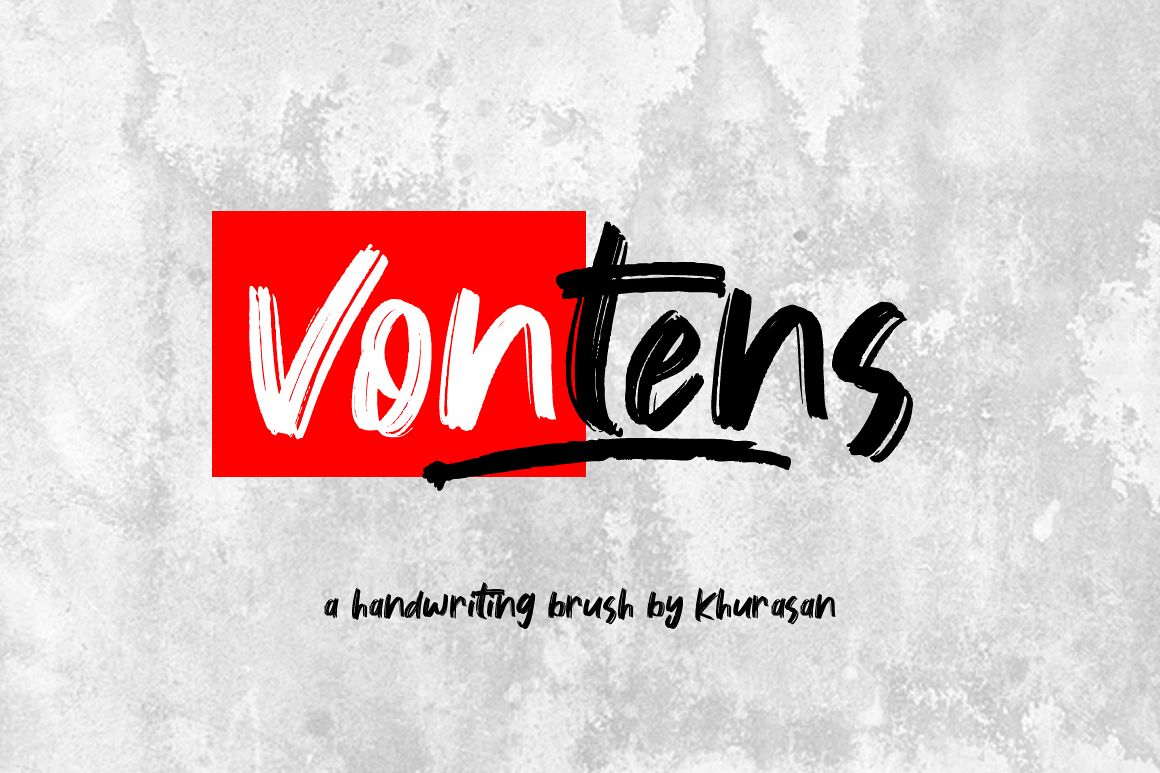
Vontens
Vontens Swash
The Vontens is a fresh handwritten font brush, elegant and vintage feel character set. The Vontens font includes a full set capital and lowercase letters, as well as multi-lingual support, currency figures, numerals, & punctuation.